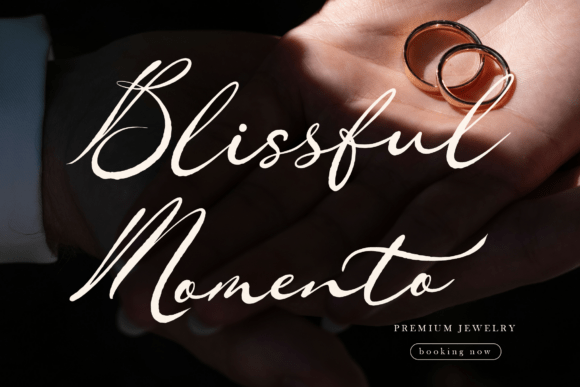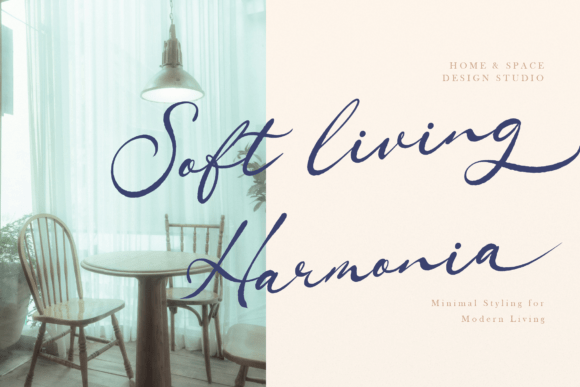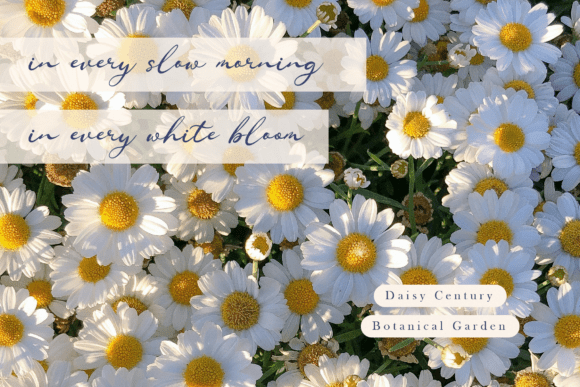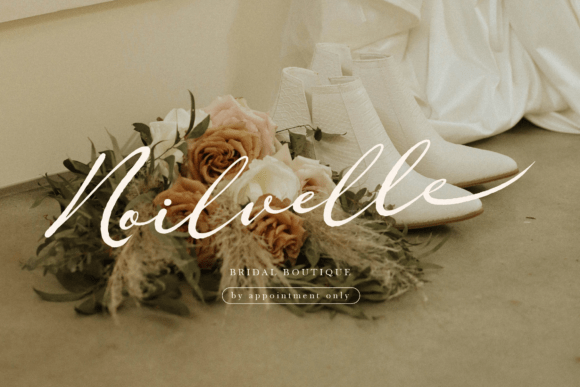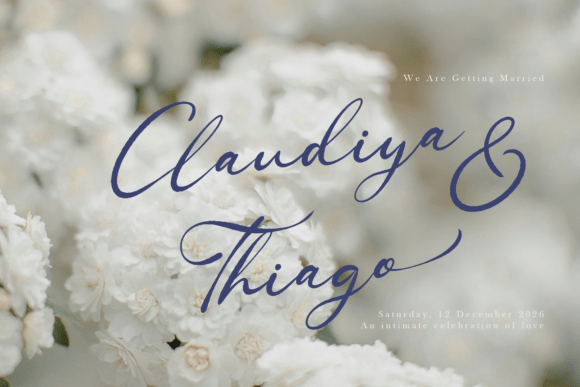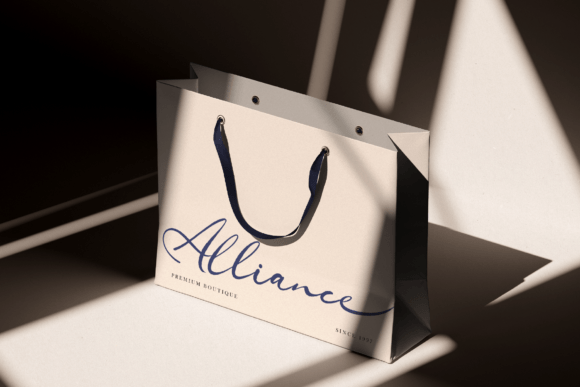
Introduction to Ranuficah Font Font
Fonts play a crucial role in design, and the Ranuficah Font font is a typeface that brings both character and versatility to any project. Whether you’re working on a branding project, a website, or a print design, the Ranuficah Font font offers a unique style that can elevate your work.
Bring a touch of artisanal luxury to your projects with Ranuficah, an elegant calligraphy script that balances classical grace with a modern, expressive rhythm.
This typeface features fluid, sweeping strokes and a natural, hand-inked texture that evokes the intimacy of a handwritten letter Ranuficah is the perfect choice for high-end branding, bespoke wedding stationery, and editorial layouts that require a signature aesthetic.
The Ranuficah Font font is more than just a typeface – it’s a design tool that helps you communicate your message with style and clarity. Its unique character set and versatile design make it suitable for a wide range of applications, from elegant invitations to bold headlines.
With its carefully crafted letterforms and balanced proportions, the Ranuficah Font font ensures readability and visual appeal across all mediums.
What makes Ranuficah Font font special?
The Ranuficah Font font stands out with its unique design, exceptional readability, and versatility across various design applications.